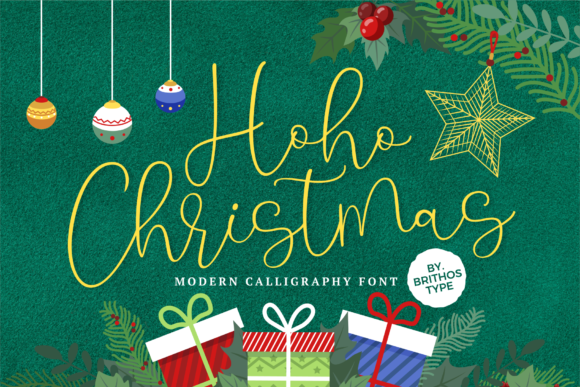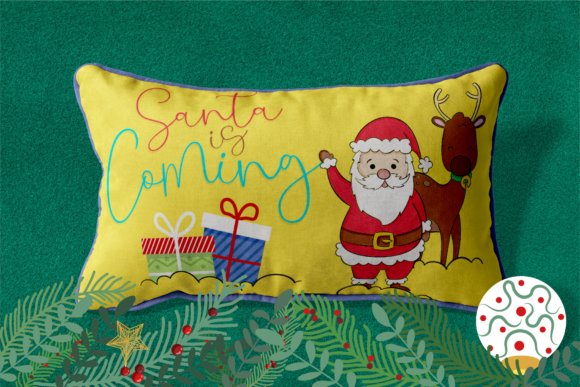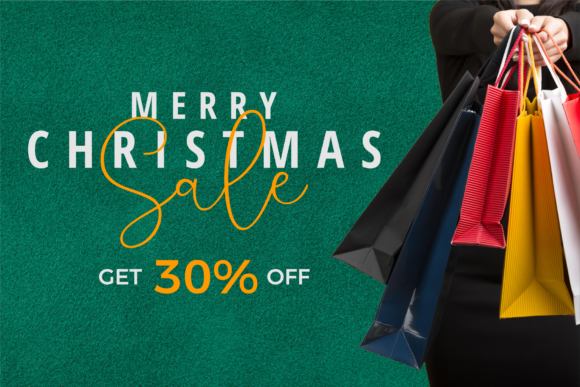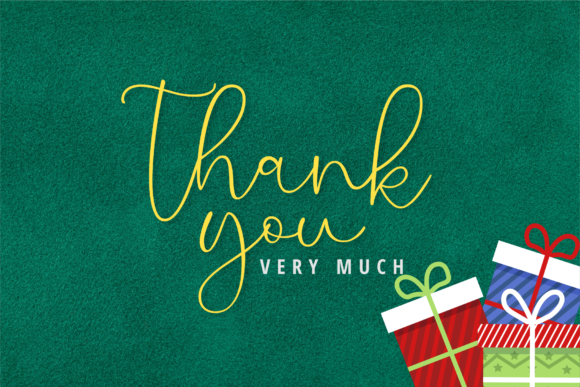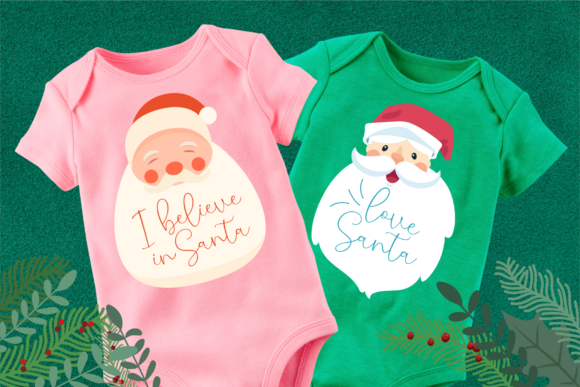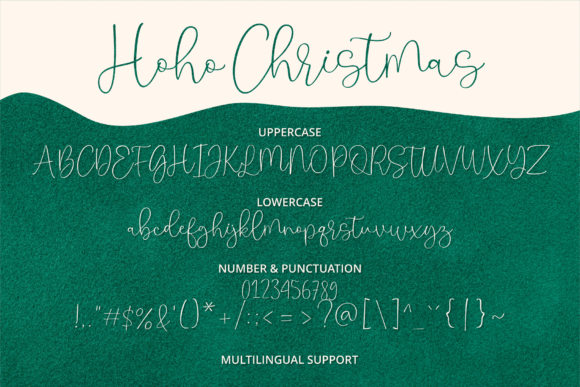
Hoho Christmas Font
About Hoho Christmas Font
Hoho Christmas is an elegant and flowing handwritten font. Not too thin and not too thick, balanced and varied. Hoho Christmas is perfect for each of your winter designs. Add it confidently to your projects and make them stand out!